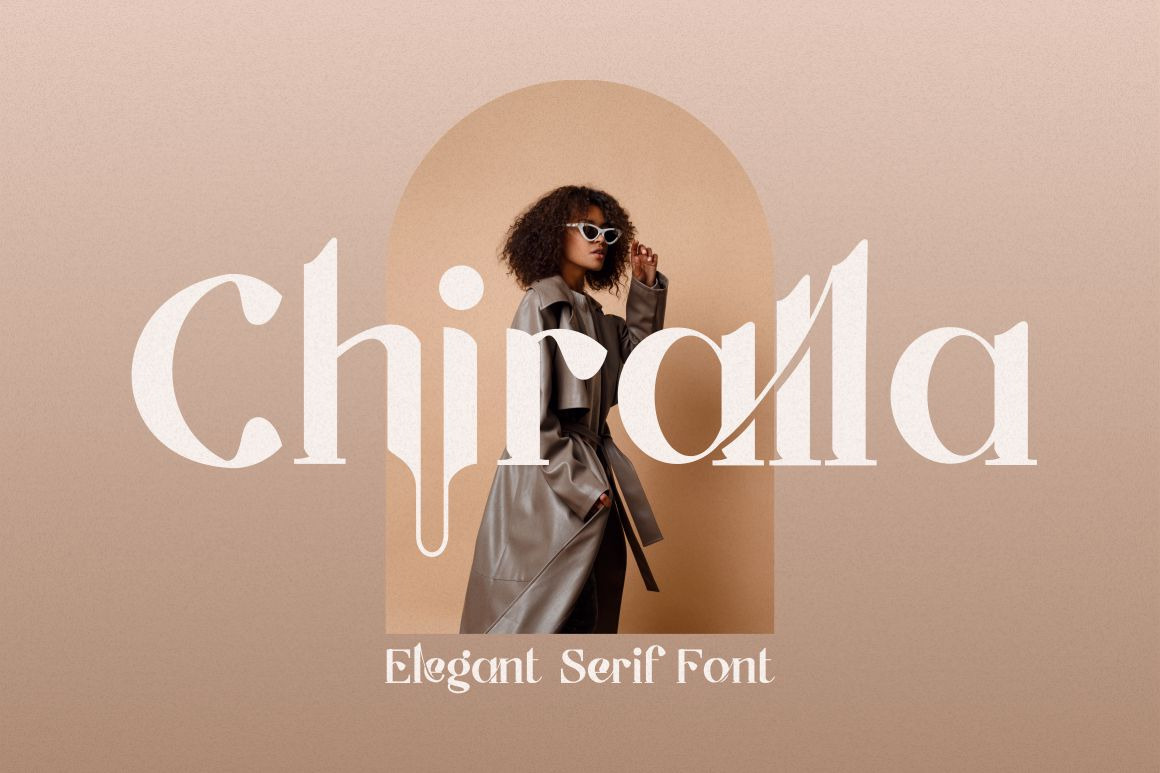
Chiralla - Elegant Serif Font
Chiralla - Elegant Serif Font. Introducing the new Chiralla !! Chiralla is a elegant and classy serif typeface. This font inspired by modern and luxury typography. Chiralla Font is a very versatile font. you can use this font to various design
This font is perfect for a professional touch which makes it to form unique & elegant typography designs. It is perfect for headings, flyer, greeting cards, product packaging, book cover, printed quotes, logotype, apparel design, album covers, etc.
The alternative characters were divided into several Open Type features such as Swash, Stylistic Sets, Stylistic Alternates, Contextual Alternates, and Ligature. The Open Type features can be accessed by using Open Type savvy programs such as Adobe Illustrator, Adobe InDesign, Adobe Photoshop Corel Draw X version, And Microsoft Word. This font is also support multi language.